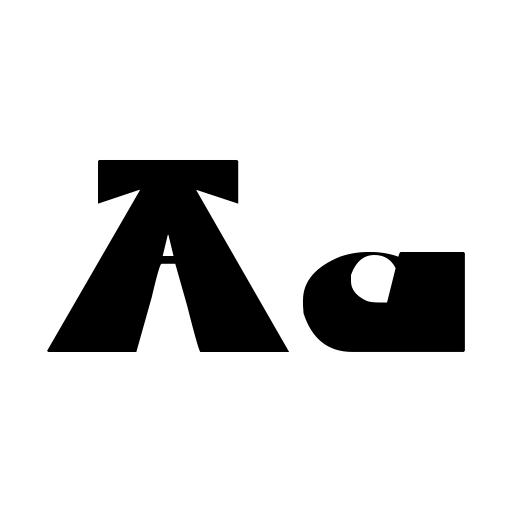
Blues Melody is a bold, decorative display font with sharp, geometric letterforms that give it a strong, jazzy vibe. Its high contrast and unique shapes make it perfect for eye-catching headlines, posters, and branding that aims to convey energy, creativity, and a vintage musical flair. This font works best where a distinctive, artistic style is needed to capture attention and express personality.
Blues Melody Font
About Blues Melody Font